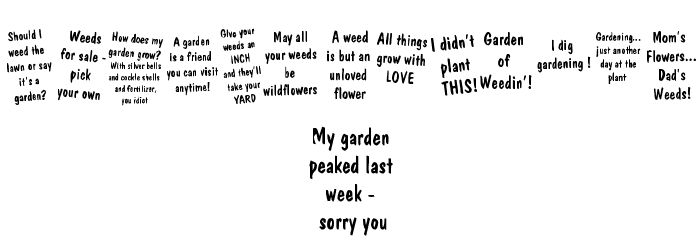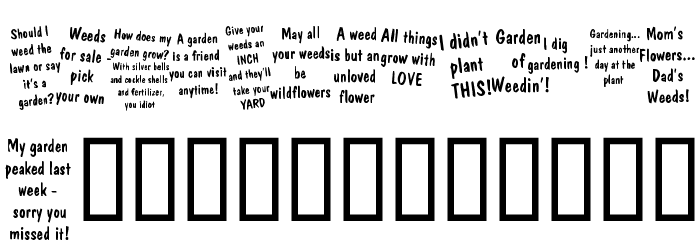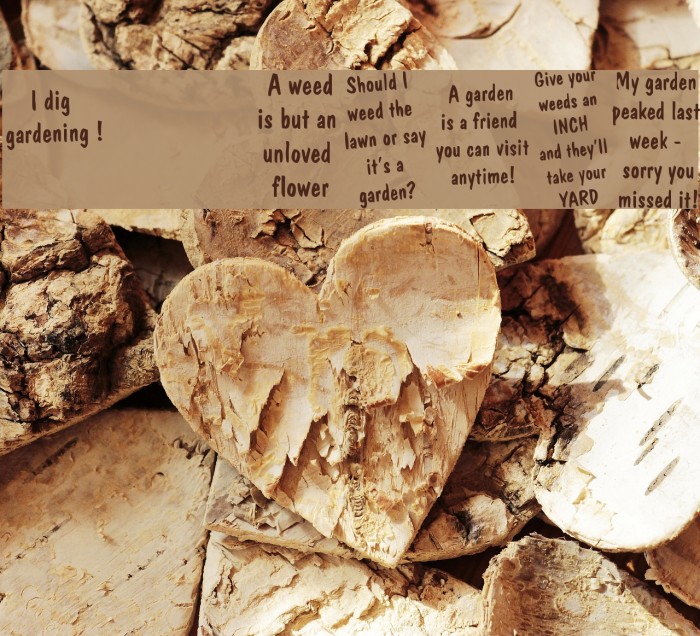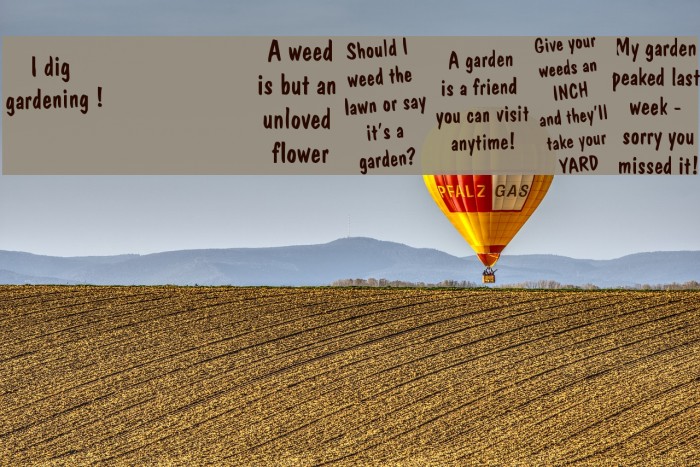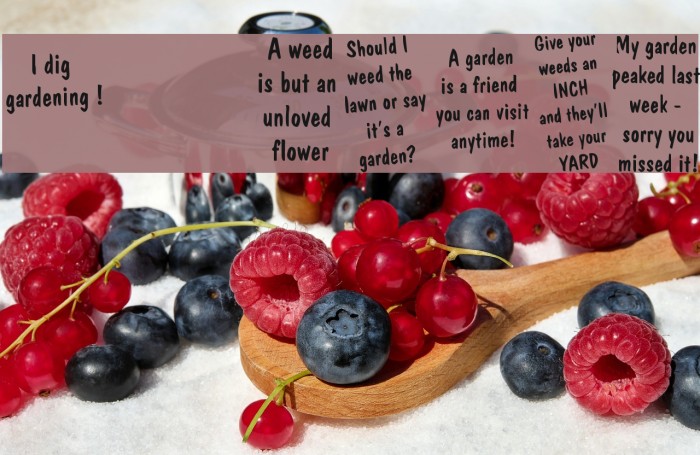
KR Gardenz Font
This font features a playful and whimsical style, characterized by its uneven and quirky letterforms. The letters vary in size and orientation, giving it a hand-drawn, casual appearance. The font includes both uppercase and lowercase letters, numbers, and a selection of special characters. Its unique style makes it stand out, with a slightly irregular baseline and varying stroke widths that add to its charm. The font's informal and friendly vibe makes it suitable for creative and fun projects, where a touch of personality is desired. Its distinctive look is perfect for adding a playful element to any design.
A playful, whimsical font with uneven, quirky letterforms and a hand-drawn appearance.
- Proposed Projects: Ideal for children's books, greeting cards, playful branding, and creative posters.
- Overall Style: Whimsical, Playful
- Use Case: Headlines, Creative projects, Informal designs